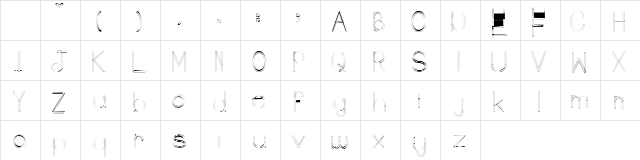
Walker is a composed and adaptable typeface that performs quietly and consistently across a wide range of design contexts. Its slender proportions lend an understated elegance to any composition.